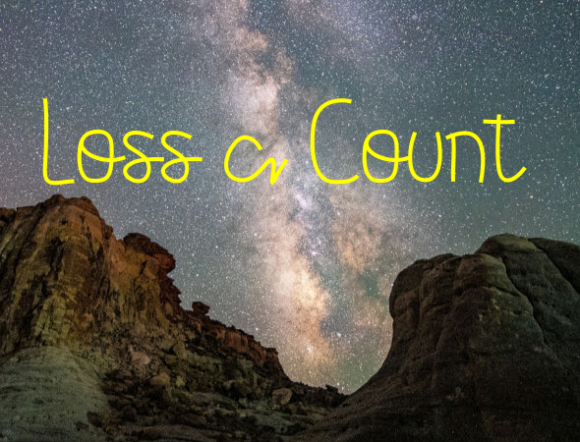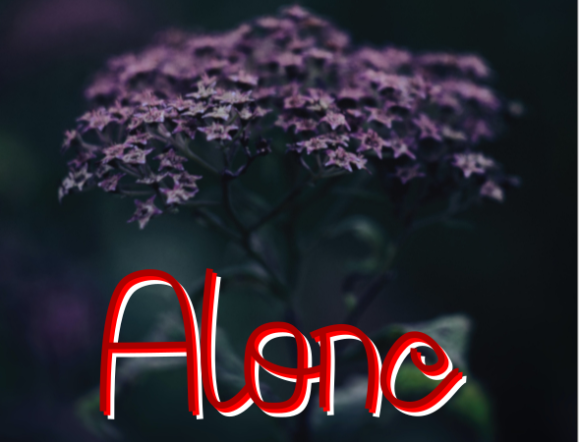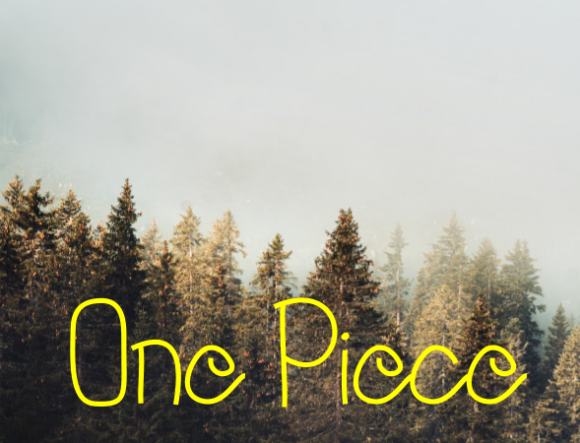
Introduction to Parramellow Font
Parramellow is a cute, simple and thin lettered handwritten font.
Its sweet and friendly style makes this font a wonderful choice for brightening up your designs .